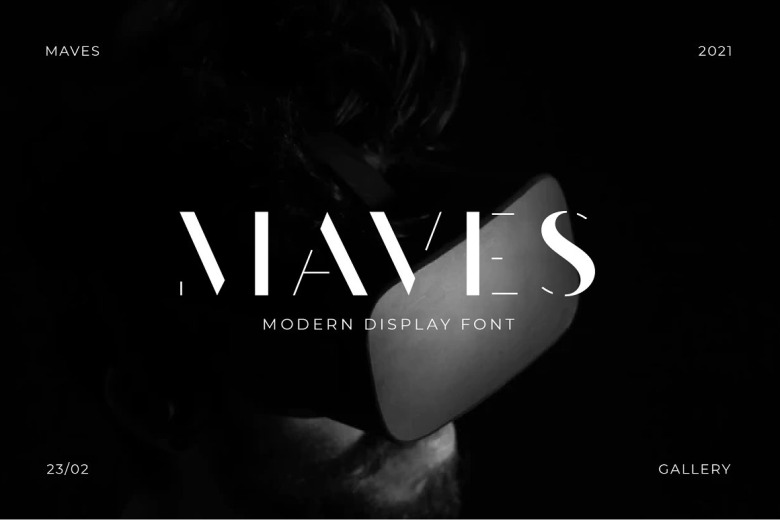
Maves Font
Maves is a futuristic sans serif display font, contemporary and versatile. Great for branding visual brand identity: logos, headlines, titles, labels, websites, stationery, business cards, advertising, etc.
Maves Sans Serif Font